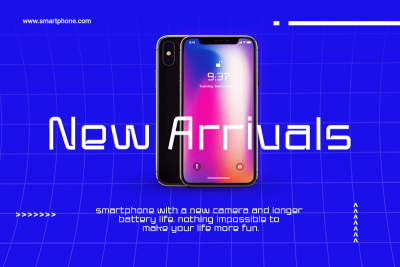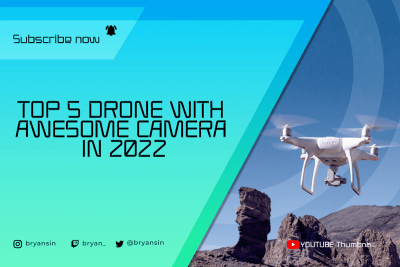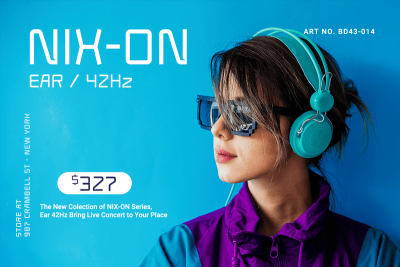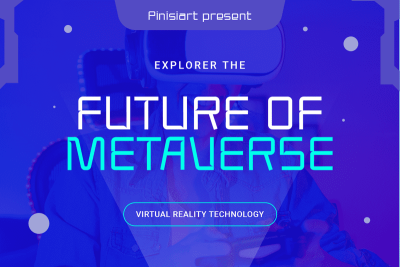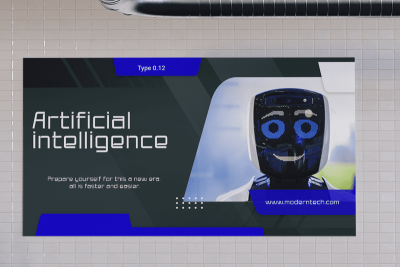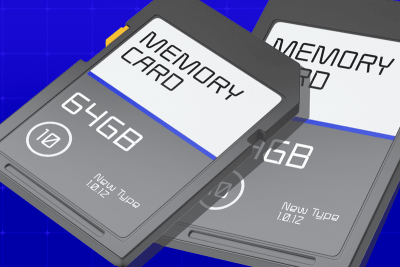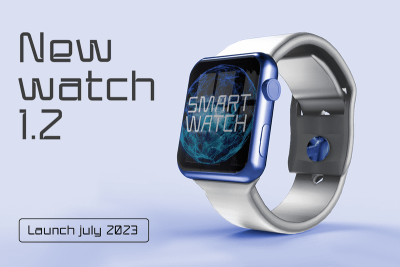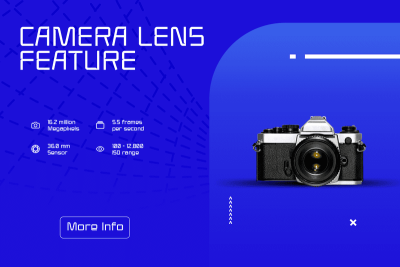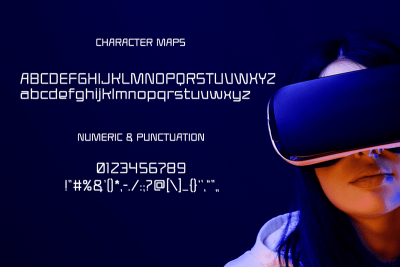
The Futuristic Font Mars Project is a cutting-edge typeface designed to bring a modern, tech-forward aesthetic to your creative projects. Its sleek lines and geometric structure capture the essence of innovation and space-age design. Whether you’re working on a high-tech branding initiative, digital artwork, or futuristic UI/UX layouts, this typeface balances style and readability.
Crafted for forward-thinkers, the Mars Project font blends functionality with aesthetic appeal. Its clean, angular edges reflect the precision of technological advancement. Subtle curves add a human touch to its mechanical feel. As a versatile display font, it is ideal for headings, logos, and attention-grabbing titles in both digital and print mediums. The fontโs bold and futuristic appearance ensures that it leaves a lasting impression on viewers, making your projects stand out.
Elevate Your Designs with Futuristic Font Mars Project
Inspired by the Red Planet’s allure, the Futuristic Font Mars Project embodies a vision of exploration and creativity. Its bold yet minimalist design is a go-to choice for designers seeking to communicate innovation, progress, and sophistication. The font’s structure has been optimized for modern screens to ensure flawless rendering across platforms. It is an excellent choice for websites, apps, and video game interfaces, where clarity and style are crucial.
This typeface is not just about aesthetics. Instead, it transforms ordinary visuals into something extraordinary. With transitional elements in its flow, it guides the readerโs eye seamlessly. This makes it ideal for storytelling and branding campaigns. For instance, tech companies can use it to emphasize forward-thinking solutions. Creative agencies can leverage its futuristic vibe to inspire innovation.
The Futuristic Font Mars Project is also highly customizable, allowing designers to adapt it to different themes and purposes. Whether you need a bold look for a sci-fi poster or a sleek design for a corporate pitch, this font delivers. In conclusion, the Mars Project font helps your designs radiate confidence, clarity, and a sense of boundless possibility. It is an indispensable tool for modern creatives.